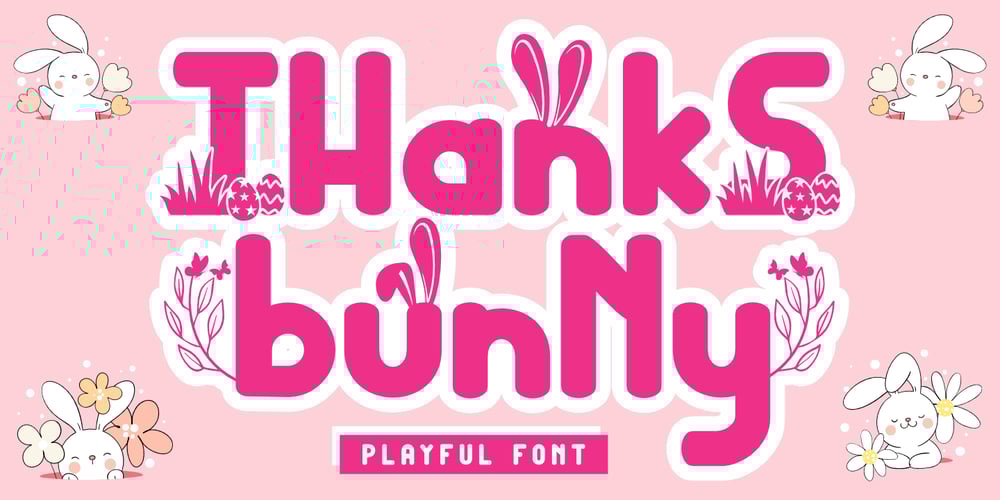
Thanks Bunny Font Family was designed by Stephanus Prabowo and published by Andrey Font Design. Thanks Bunny contains 1 styles and family package options. Thanks Bunny is a cute and jolly looking display font, carefully handcrafted to become a true favorite. Its casual charm makes it appear wonderfully down-to-earth, readable and, ultimately, incredibly versatile. Thanks Bunny will look outstanding in any context, whether it’s being used on busy backgrounds or as a standalone headline!